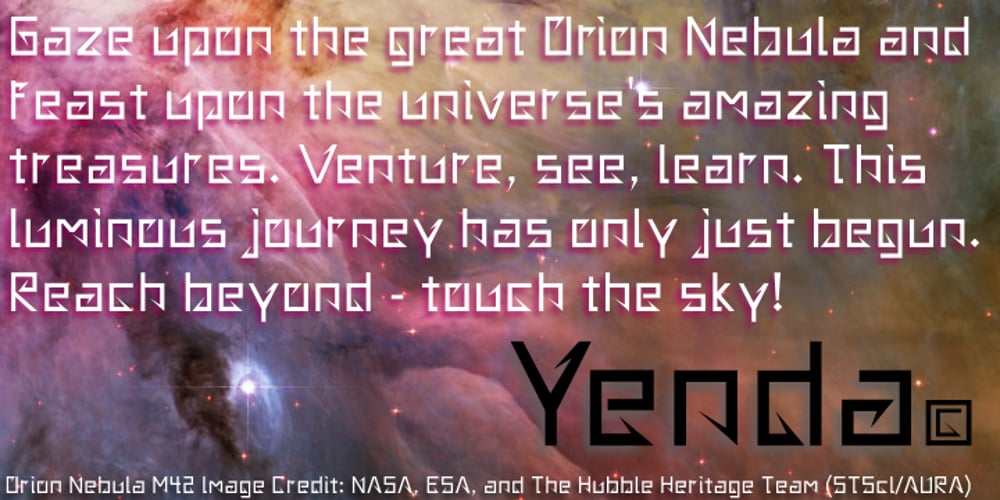
Yenda Font Family was designed by Denise Koehler and published by Deniart Systems. Yenda contains 1 styles and family package options. Yenda is a bold angular font with just a bit of swoosh. Great for short text and headlines! Don’t leave this one out of your next sci-fi or bold designs! This typeface includes all the special diacritics required for European languages.